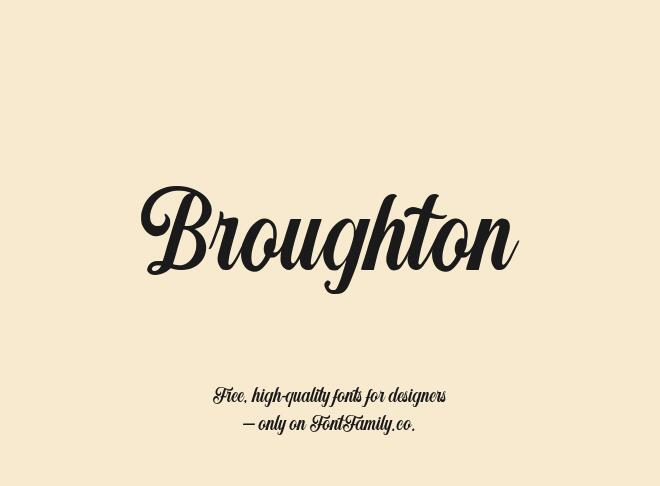
Broughton Font
Broughton Font is a modern script font with elegant, flowing characters that are perfect for a sophisticated and contemporary look. Its distinct style combines the charm of classic script fonts with a modern twist, making it perfect for branding, logos, wedding invitations, and fashion designs. Broughton Font shines in settings where elegance and style are paramount. It's similar to the popular fonts such as 'Bickham Script' and 'Burgues Script' but has a unique flair that sets it apart. Its Open Font License makes it free for personal and commercial use, making it a great choice for designers seeking to elevate their work with a touch of elegance and modernity.